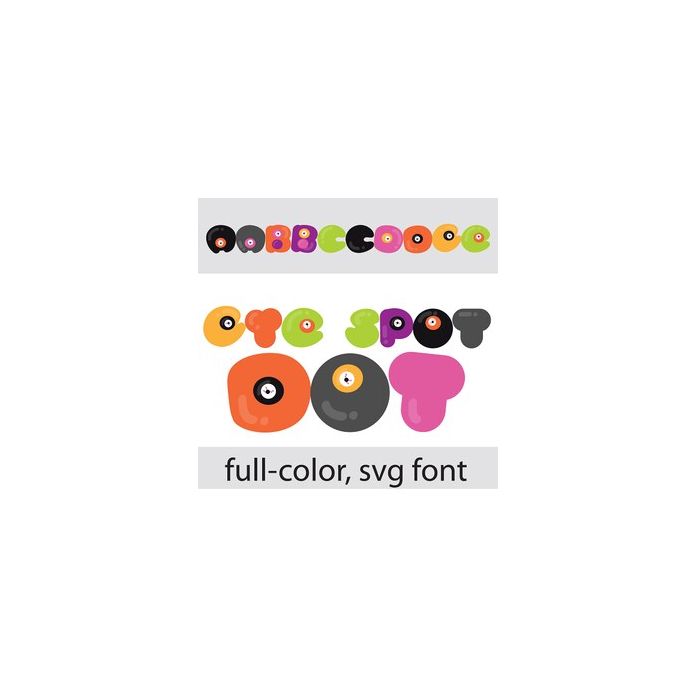
This full-color font features a fun Halloween color palette and eyeballs throughout. There is an alt case w/ additional colors you can access through your system or Silhouette's glyph map.